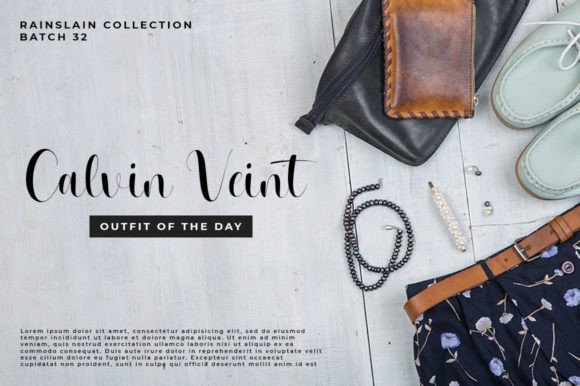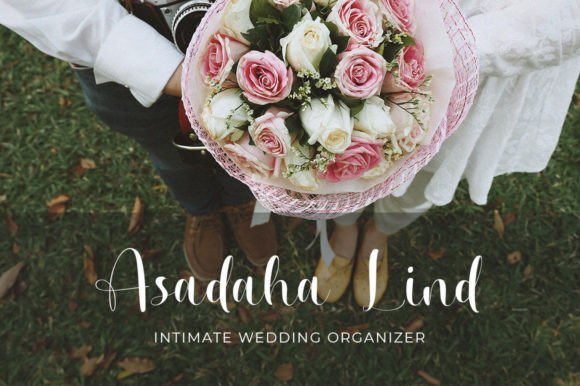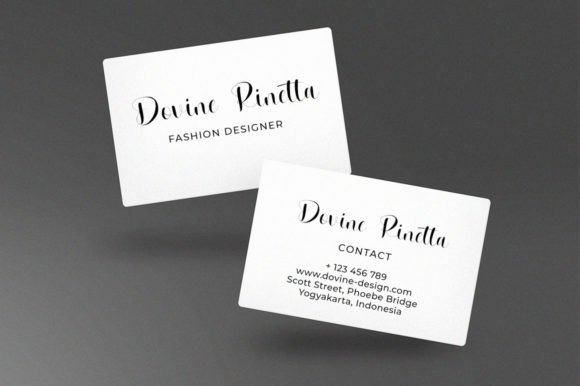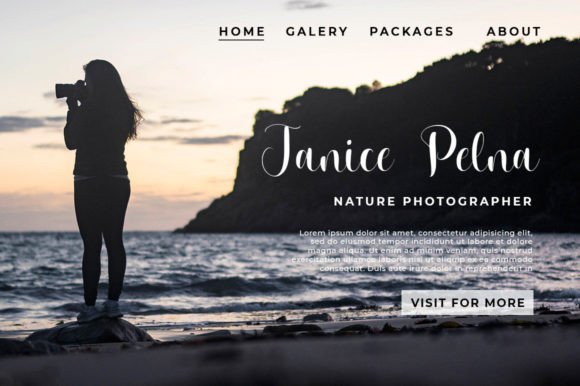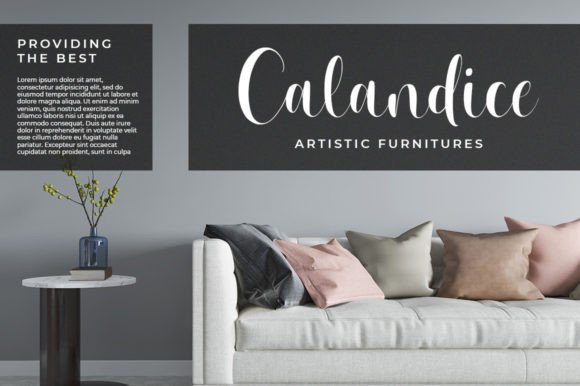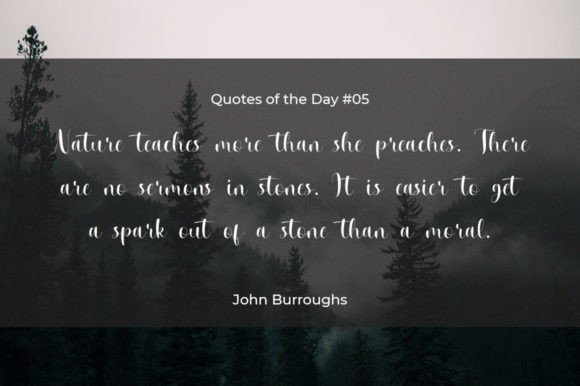
Introduction to Janelitta Font
Introducing Janelitta Script, a stylish Font Style.
This beautiful script font offers a personal touch to your latest art project with an elegant, classy, and modern look The Janelitta Script offers gorgeous typographic perfect for many different projects such as logos & branding, invitations, stationery, wedding designs, social media posts, advertisements, product packaging, product designs, labels, photography, watermarks, special events, or anything that needs handwriting taste.
Janelitta Font offers exceptional quality and versatility, making it a valuable addition to your design toolkit. Whether you’re creating for personal projects or commercial use, Janelitta Font delivers professional results.